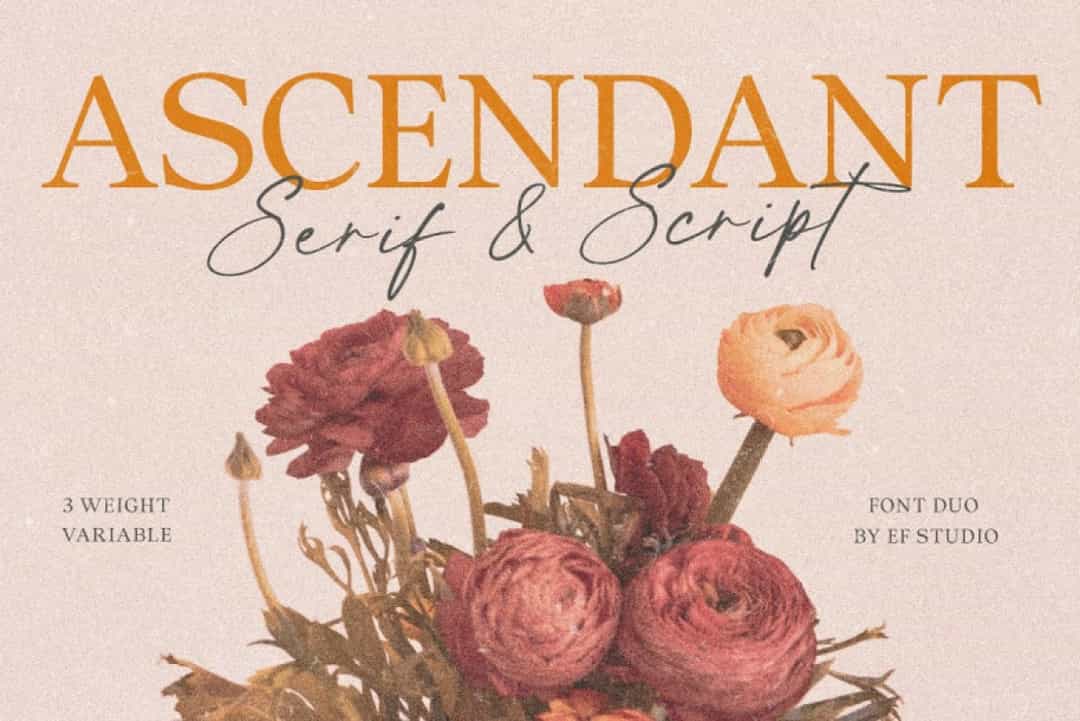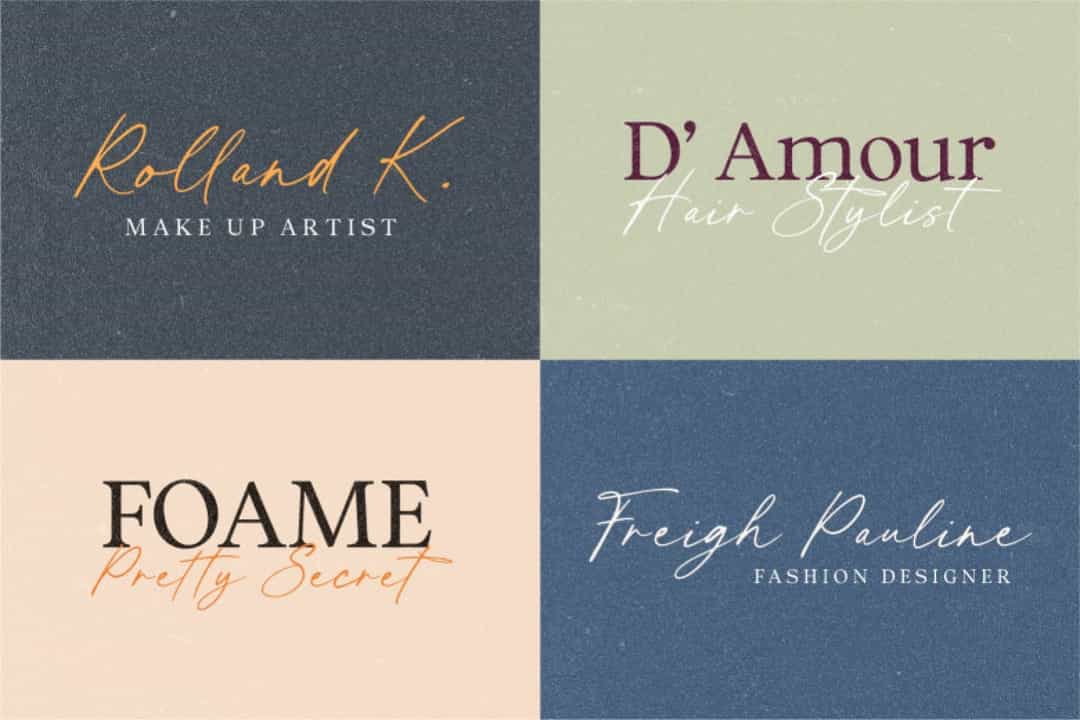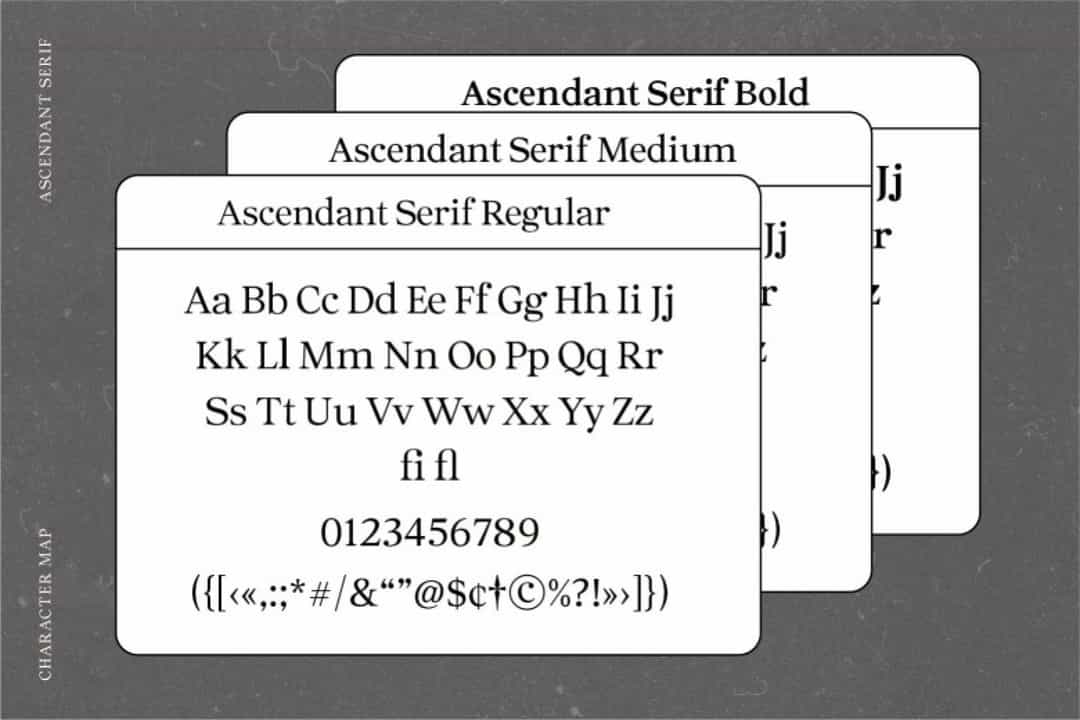
Ascendant is the name of a font pair consisting of modern serif family fonts and script. This versatile font pair is great for editorial design, branding logo design, book poster designs and magazine layouts alike – ideal for editorial designs such as branding logo designs.